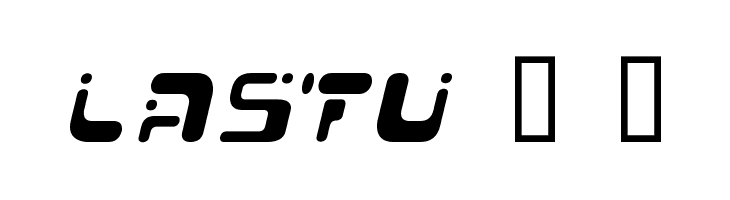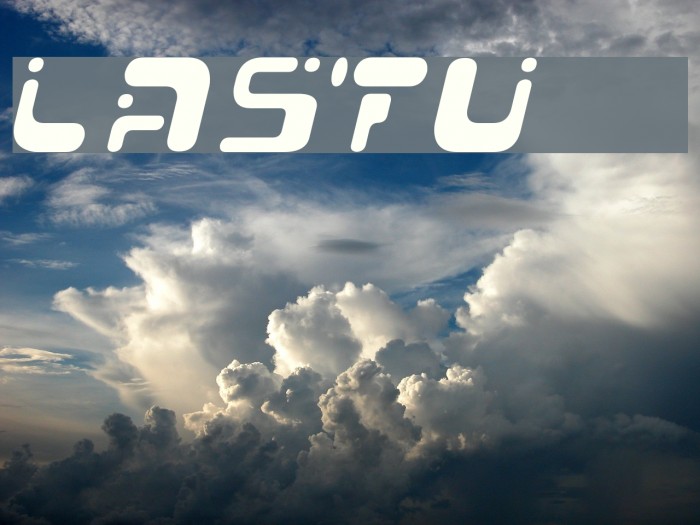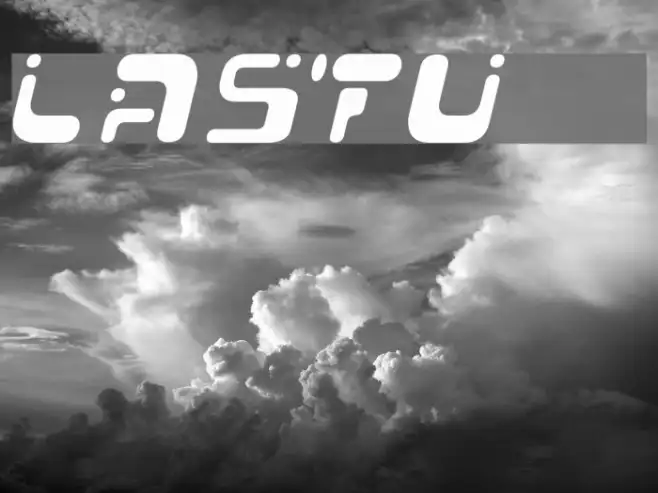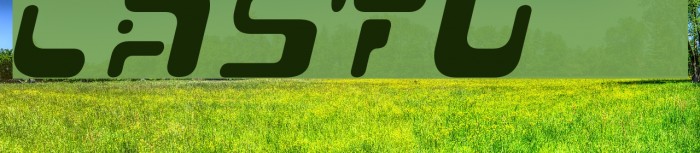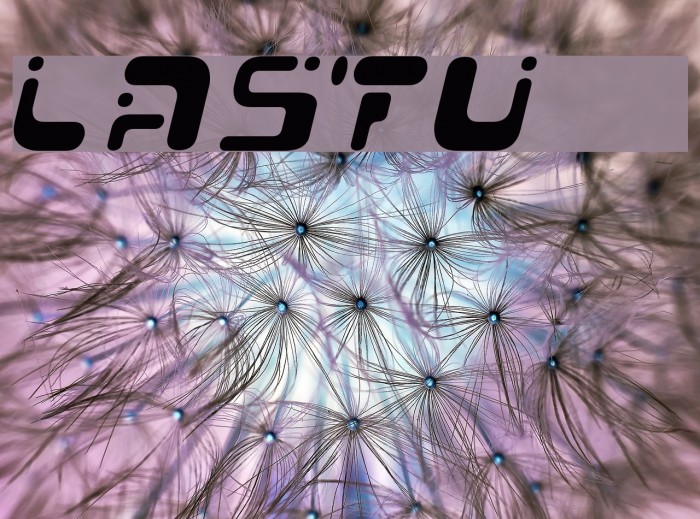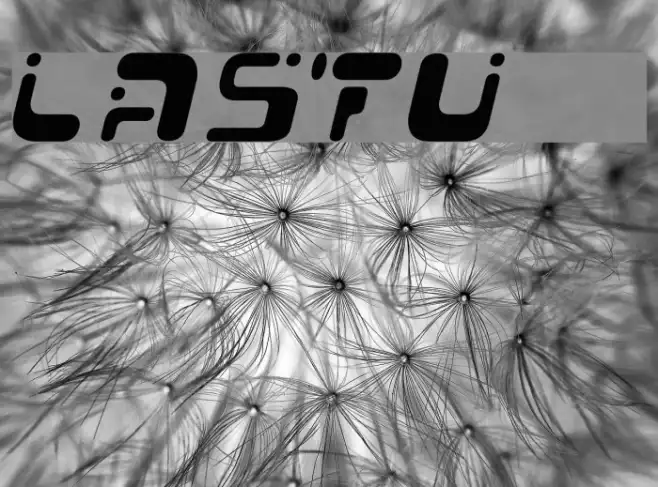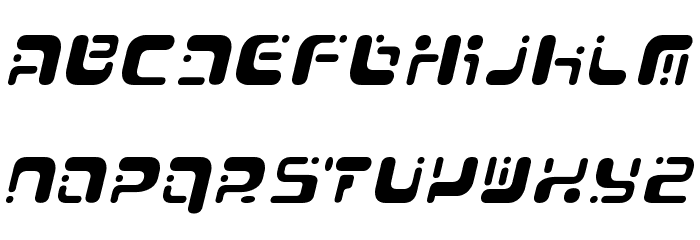
Lastu # 1 Font
This font features a futuristic and geometric design, characterized by its bold and rounded letterforms. The characters are composed of thick strokes with smooth curves and minimalistic dot accents, giving it a unique and modern appearance. The uppercase and lowercase letters maintain a consistent style, with a focus on symmetry and balance. The numbers and special characters follow the same design principles, ensuring uniformity across the font. This font's distinct style makes it stand out, suitable for projects that require a contemporary and tech-inspired look.
A futuristic, geometric font with bold, rounded letterforms and minimalistic accents.
• Proposed Projects: Ideal for technology branding, sci-fi themed designs, video game interfaces, and modern advertising.
• Category: Decorative/Display
• Overall Style: Modern
• Use Case: Logos, Headlines, Posters